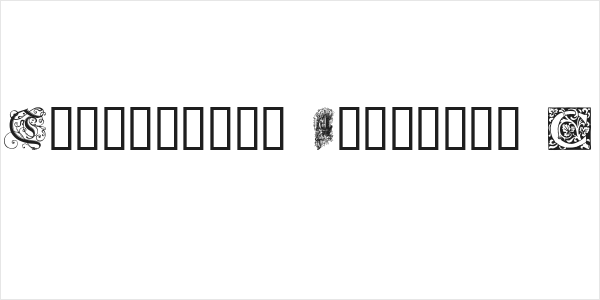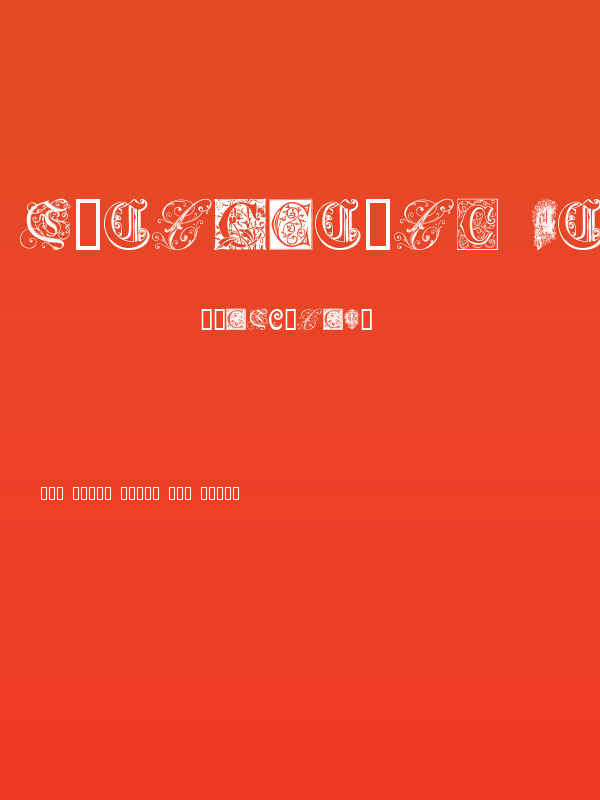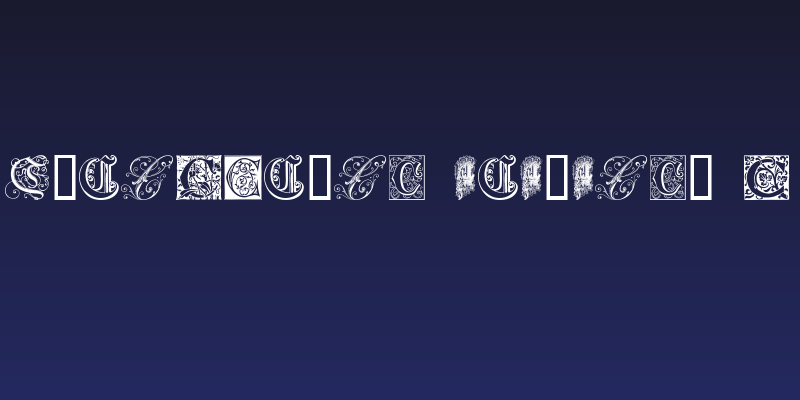
Ornamental Initials C Font
Ornamental Initials C Description
This font features highly decorative and ornate initials, each letter intricately designed with floral and vine-like embellishments. The letters are enclosed in square frames, giving them a distinct and elegant appearance. The style is reminiscent of medieval manuscripts, where such elaborate initials were used to mark the beginning of sections or chapters. The intricate details and artistic flourishes make each letter a standalone piece of art, suitable for projects that require a touch of historical or classical elegance.
| Use Case | Logos, Headlines, Decorative elements |
| Proposed Projects | Ideal for use in wedding invitations, historical documents, book covers, or any project requiring a classical and artistic touch. |